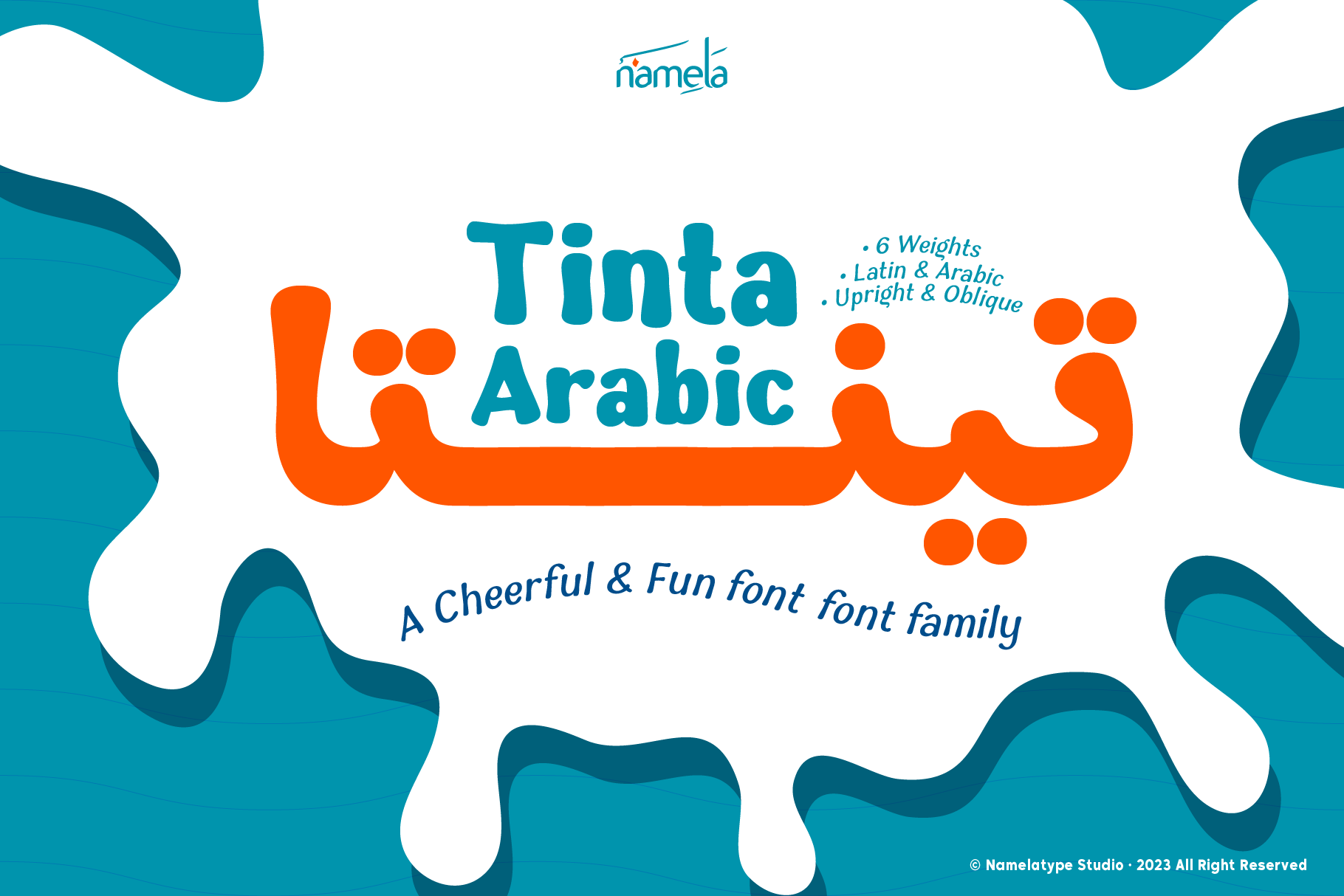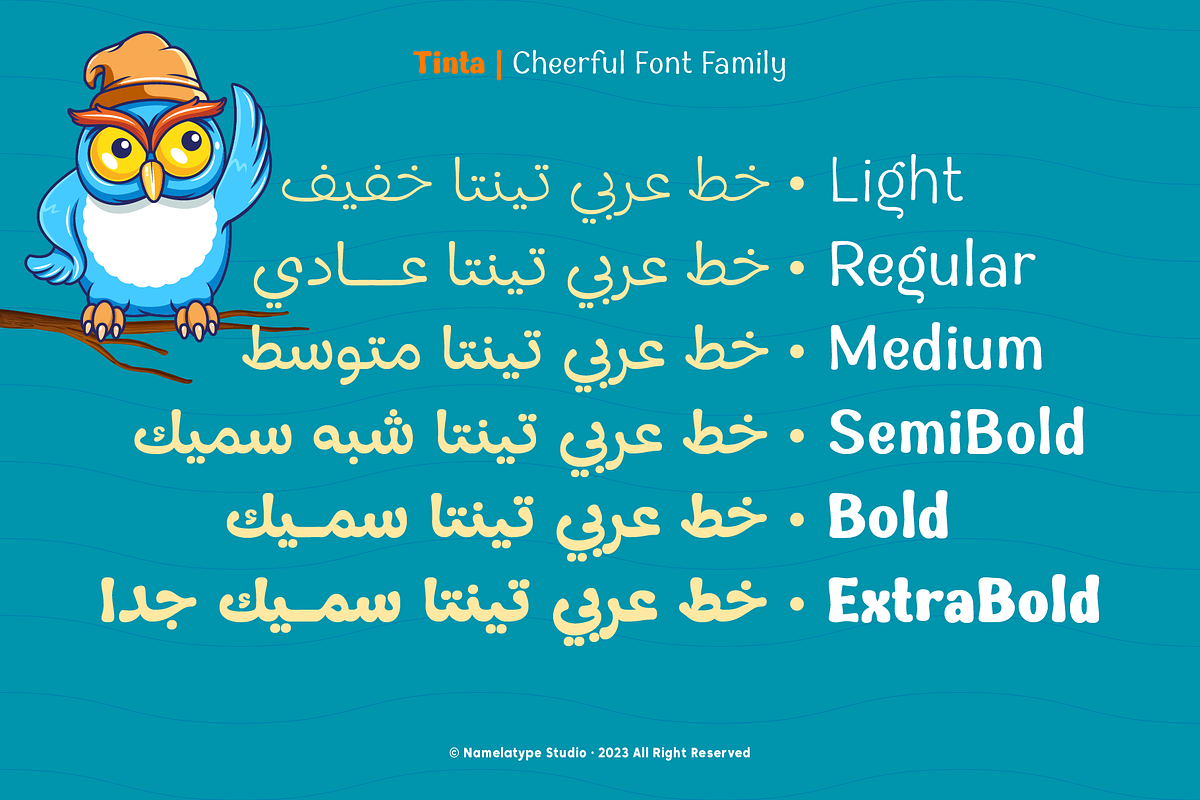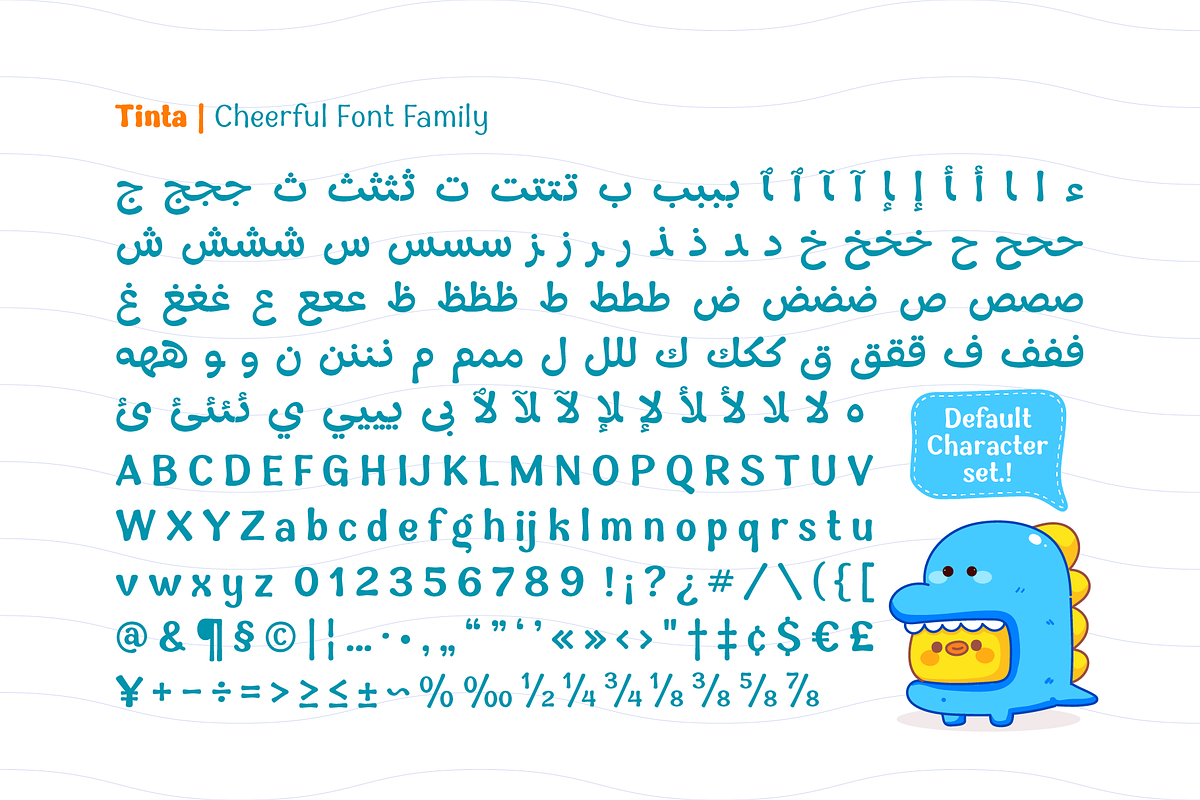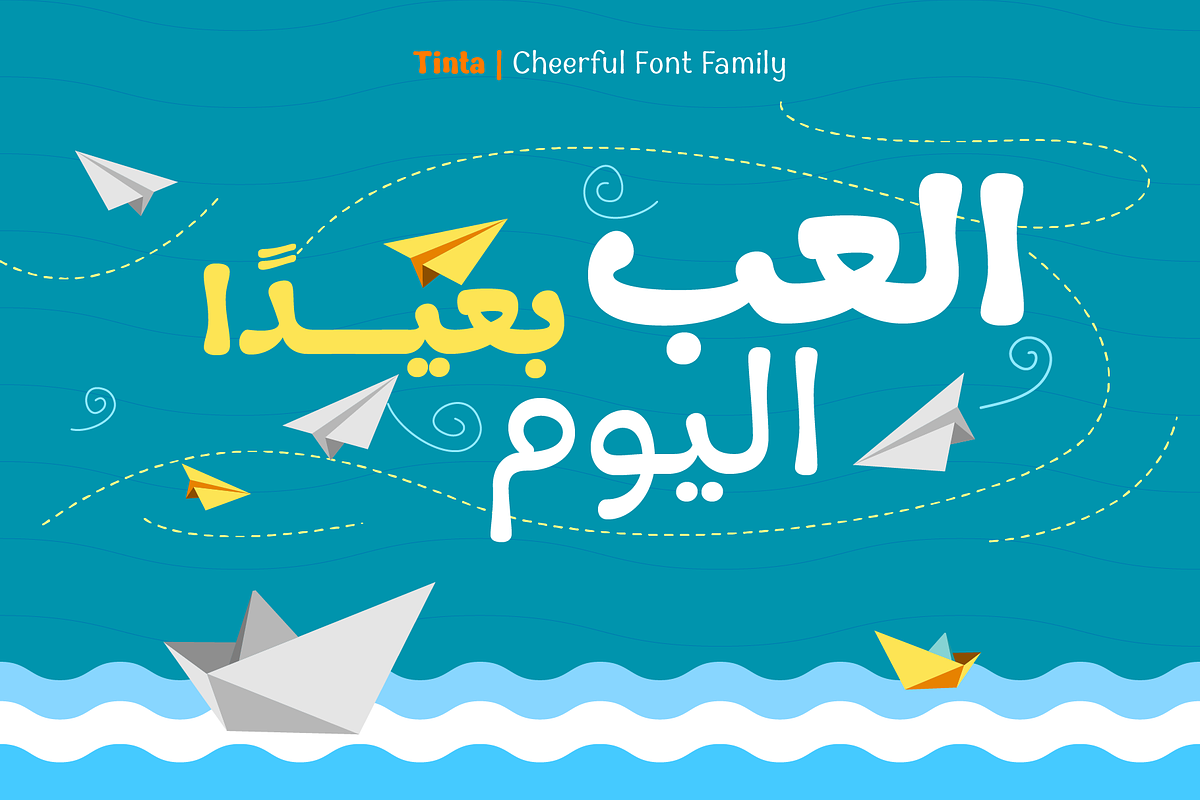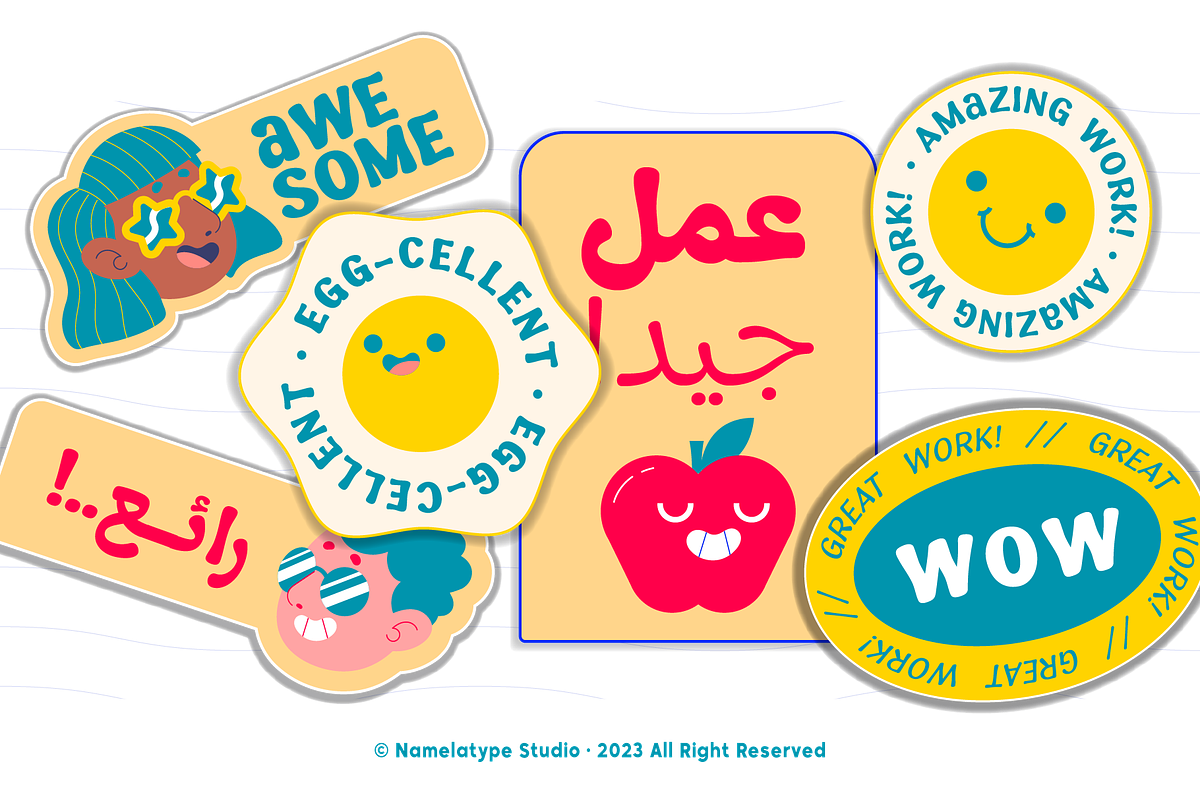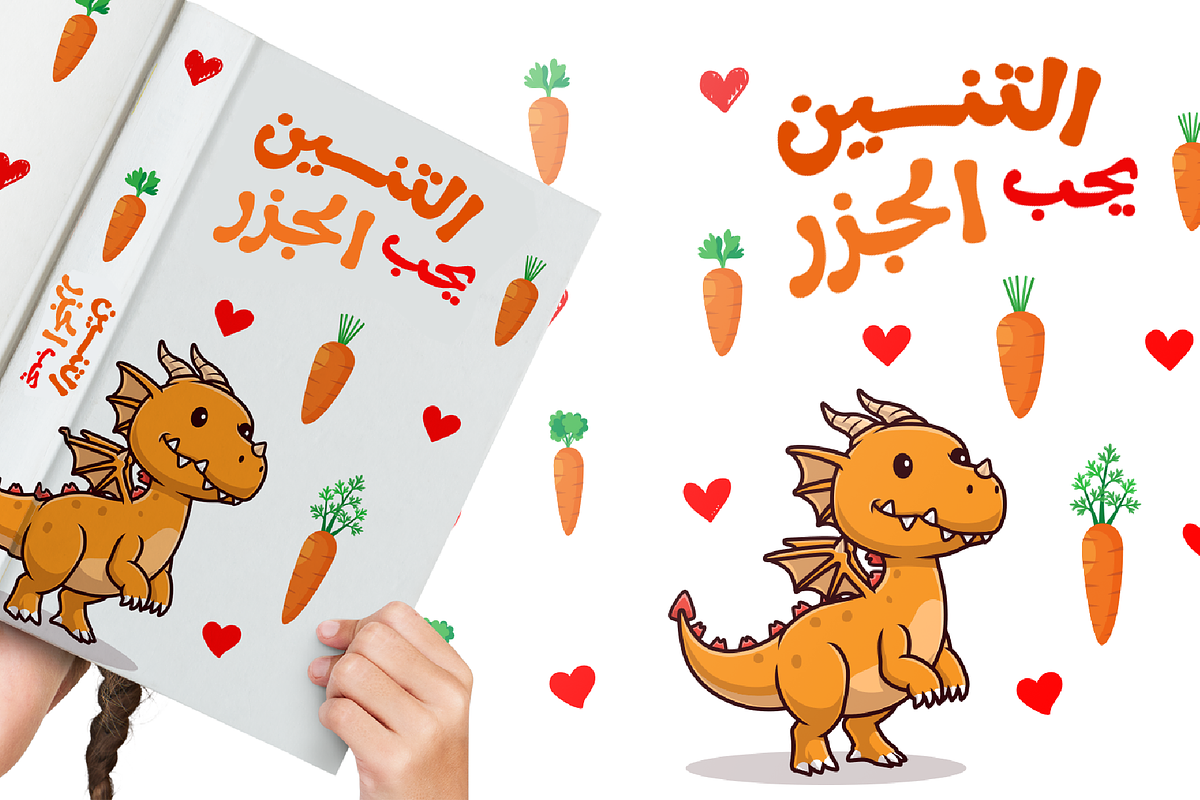
Tinta Arabic - Cheerful Arabic Font
Tinta Arabic font is the perfect counterpart to its sibling Tinta Font. Thoughtfully enhanced with additional Arabic glyphs to facilitate international versatility and creativity. It expands its reach to cater to a broader audience, encompassing Arabic, Urdu, Kurdish, Farsi, and Jawi scripts.
In the realm of Arabic typography. Tinta Cheerful Arabic font excels with a basic form rooted in the elegant Naskhi style. Offering a charming and cute shape to harmonize seamlessly with the Latin script. This harmonious fusion ensures that your designs transcend linguistic and cultural boundaries. Capturing a wide range of audiences and creative possibilities.